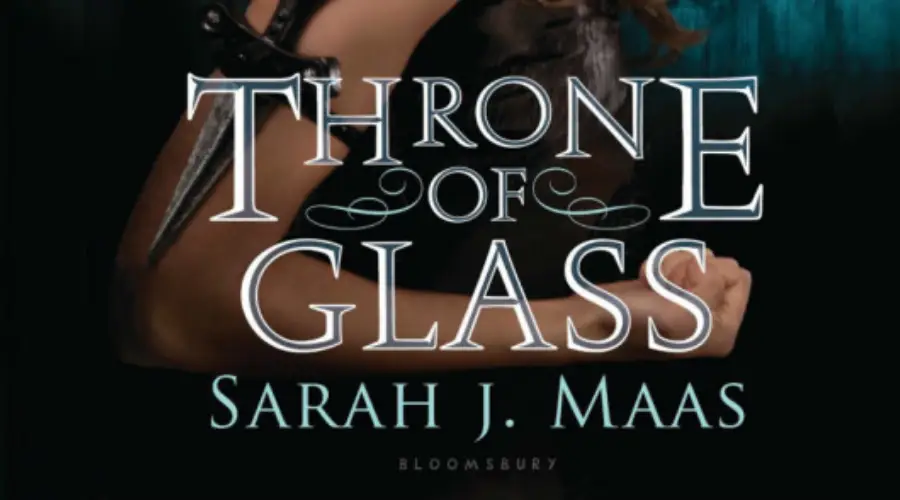
The “Throne of Glass” series by Sarah J. Maas features a distinctive title font on its book covers, primarily utilizing the Augustea Open typeface. This all-capital font, designed by Alessandro Butti and Aldo Novarese, draws inspiration from the classic Capitalis script of the first century AD, offering a balanced and majestic appearance.
Similar Fonts:
Based on your findings, here are fonts similar to Augustea Open:
Augustea Open Std Regular by Aldo Novarese β A serif font with a classic and elegant design, closely resembling the font used in the Throne of Glass logo.
Openface No2 by SoftMaker β A decorative serif font with a similar regal and ornate aesthetic.